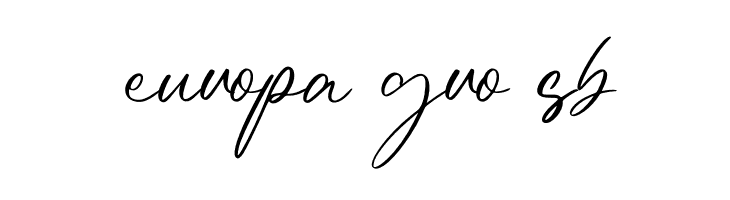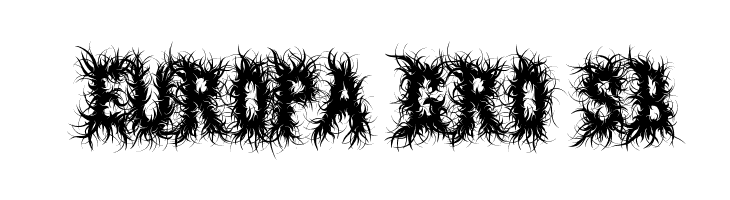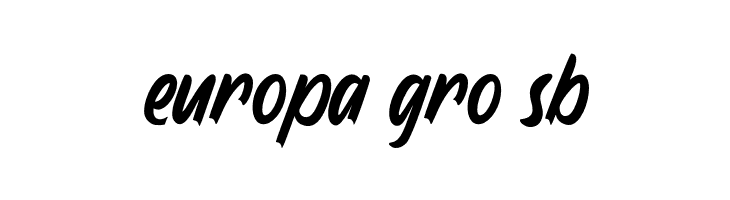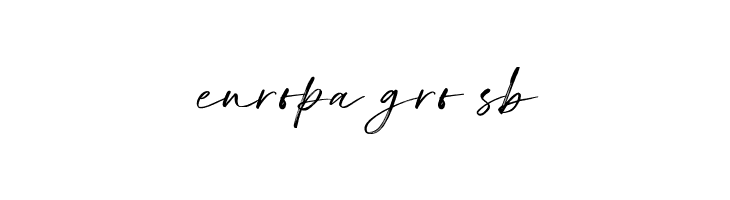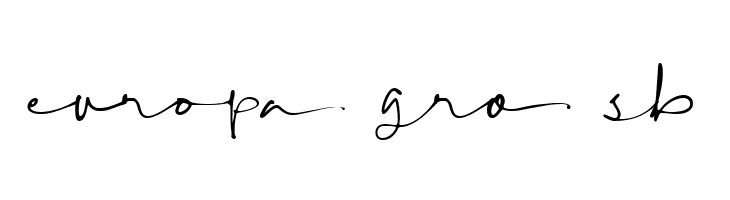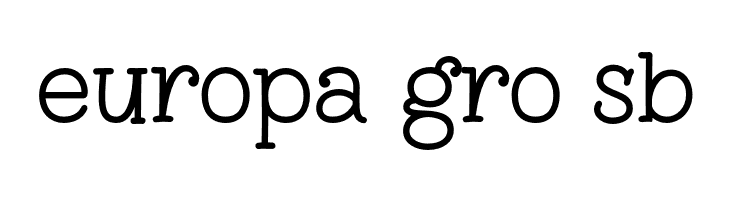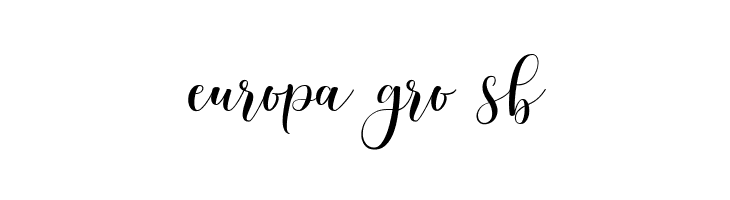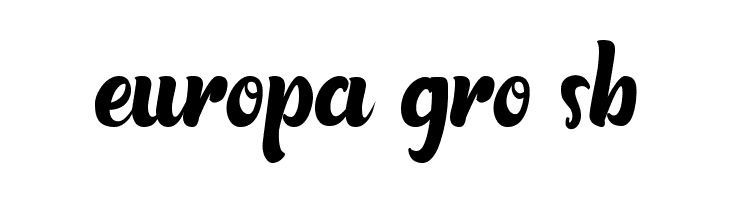
A graceful script font with fluid, cursive strokes and elegant flourishes.
A chaotic, vine-like decorative font with intense detailing.
A bold, dynamic script font with sweeping curves and high contrast.
A sophisticated script font with elegant loops and high contrast strokes.
A modern, elegant handwritten font with fluid cursive letterforms.
A stylish and elegant script font with flowing, interconnected letterforms.
A playful, curly font with rounded edges and whimsical character.
An elegant script font with flowing, interconnected letters and calligraphic style.
A bold, flowing script font with elegant curves and a strong presence.
An elegant, flowing script font with a classic, sophisticated appearance.